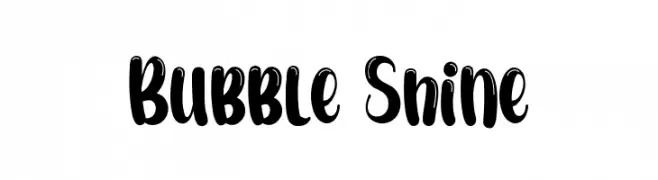
Bubble Shine Font
A bold, bubbly font with a shiny, playful style.
Sandy Kids Font
A playful, bold, and rounded font with a hand-drawn aesthetic.
Hungry Beast Font
A bold, playful font with exaggerated serifs and dynamic forms.
Bestallie-Regular Font
A bold, cursive script font with fluid, interconnected strokes and dynamic flair.
Dalmantian Font
A fluid and graceful script font with elegant, flowing lines.
Angkise Font
A playful, hand-drawn font with a whimsical and casual style.
Cosette Font
An elegant, flowing script font with smooth, cursive strokes and graceful curves.
Romantica Font
A romantic, cursive script with elegant, flowing lines.
The Rickon Font